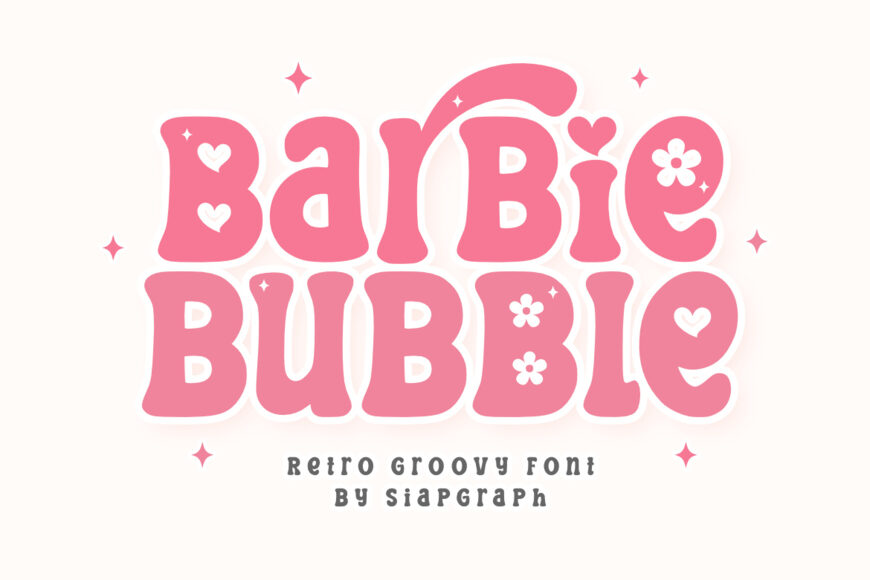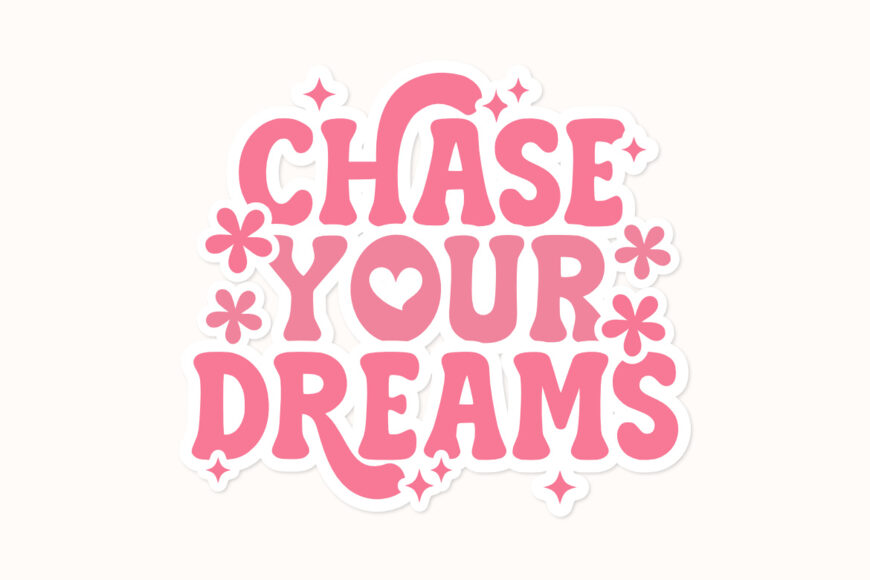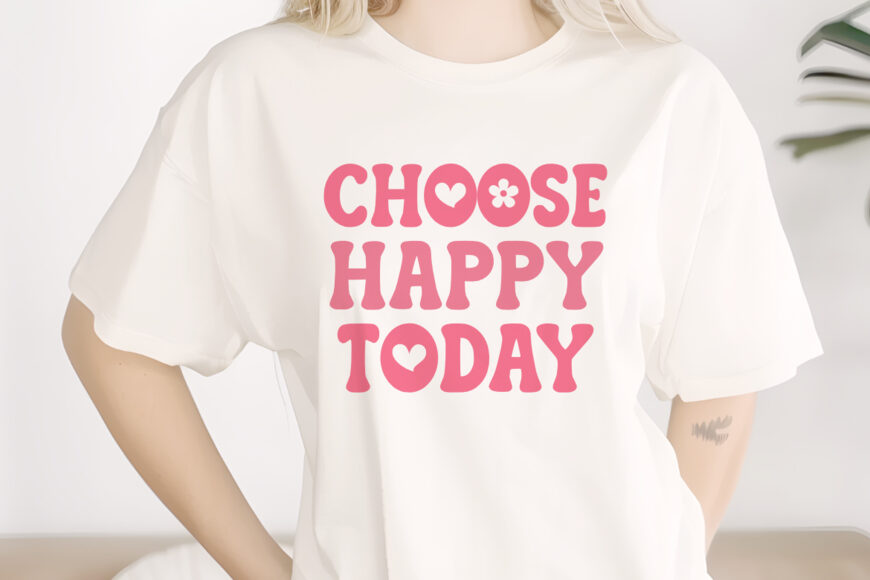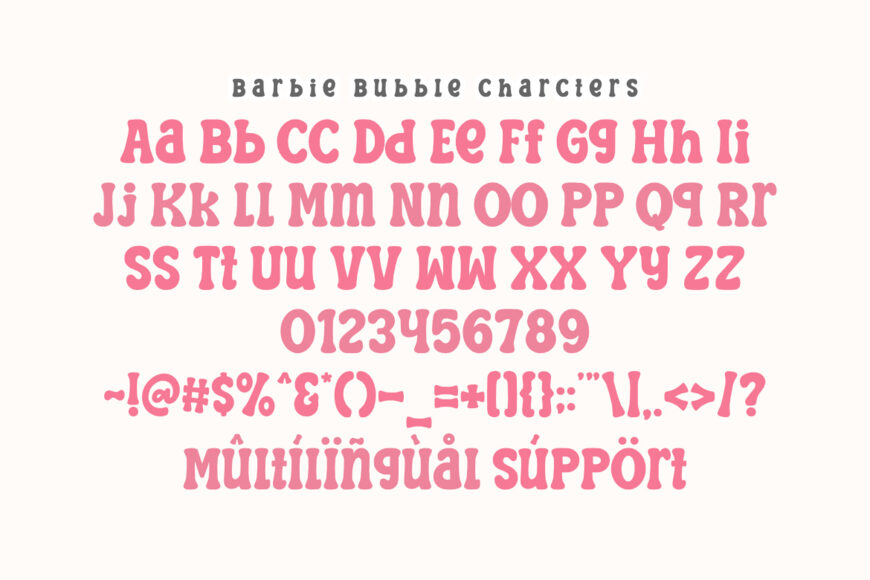
Barbie Bubble Font
Barbie Bubble is a retro groovy font that captures the playful, fun, and iconic aesthetic of the 70s with a modern, bubbly twist. Featuring thick, rounded, and bouncy letterforms, this typeface is expertly crafted to give your designs a soft, lovely, and friendly appearance.
Its bold and substantial construction is specifically optimized for the crafting community, ensuring a seamless and frustration-free experience for vinyl cutting, sublimation, and high-quality digital printing.